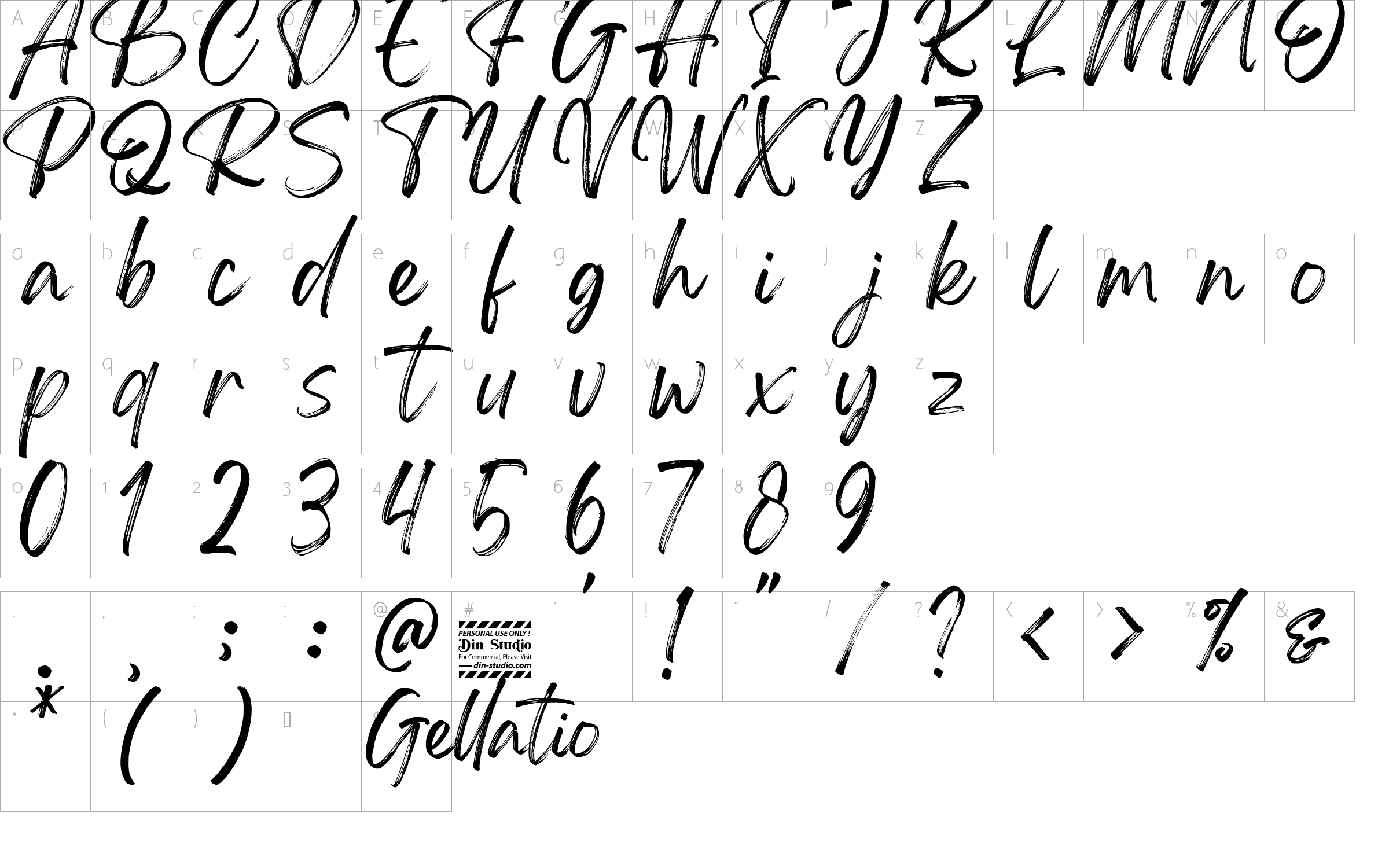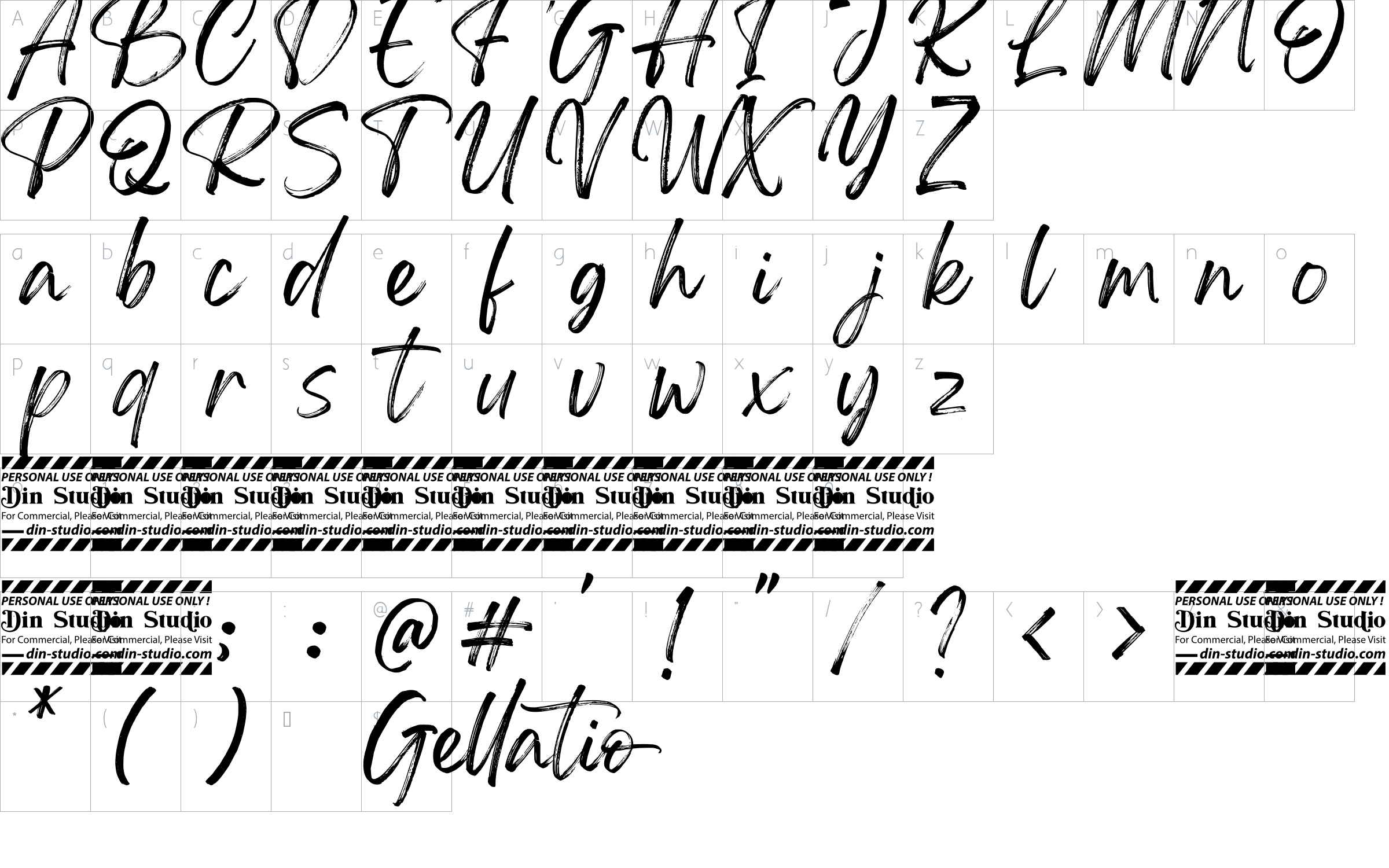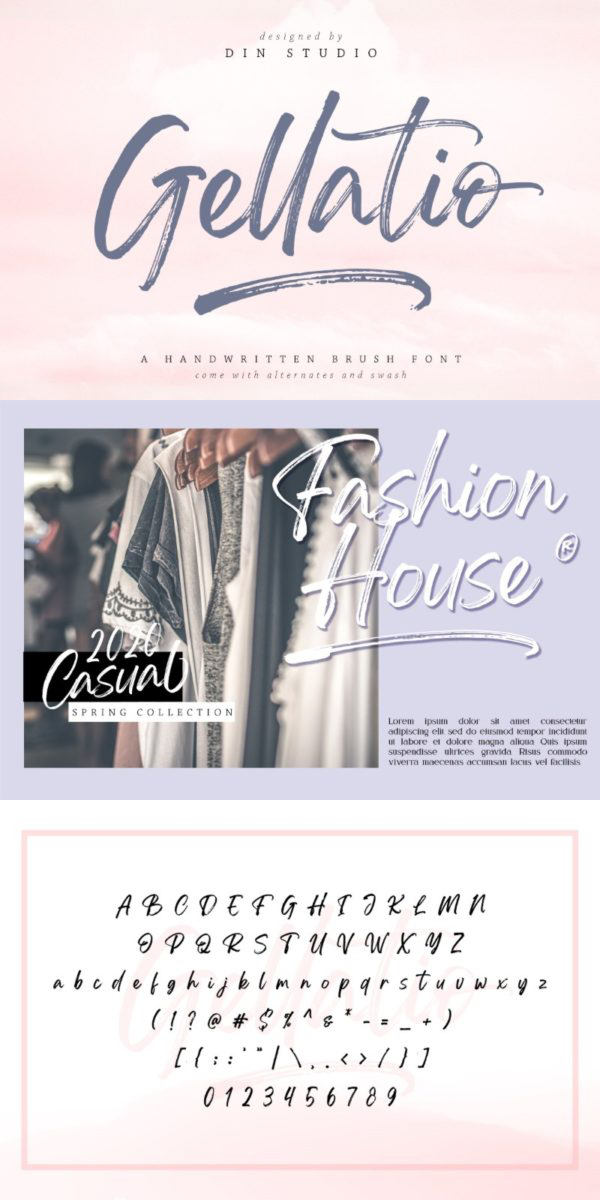
Gellatio Font
About Gellatio
Gellatio is a beautiful handwritten font made from natural hand brush. It was created to look as close to a natural handwritten script as possible. This font will make your design projects more beautiful. Gellatio brush font includes a full set of uppercase and lowercase letters, numerals, ligatures, swashes and punctuations. It is perfectly suitable for any designs, like brandings, fashions, printed templates, quotes, weddings and more.
- 88 Beautiful Alternates
- 6 Beautiful Ligatures
- 52 Swashes
- Numerals and Punctuations (OpenType Standard)